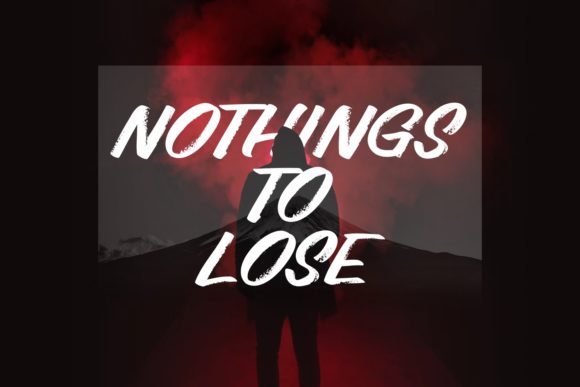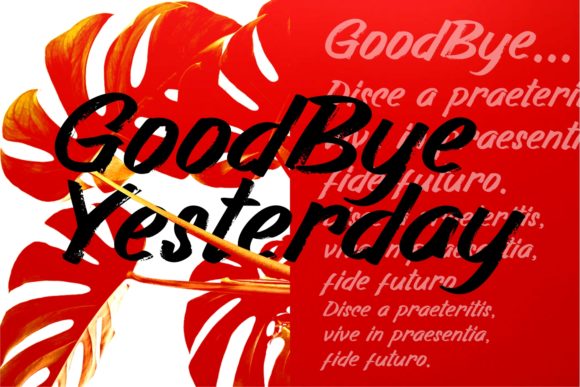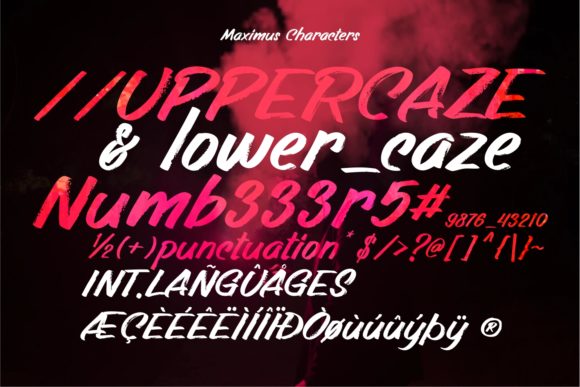
Introduction to Maximus Font
As a designer, you’ve likely found yourself staring at a blank canvas, searching for the perfect font to bring your creative project to life. The words on the page seem to be missing that special something – a spark that sets the tone for the entire design. That’s when you stumble upon a hidden gem, a font that effortlessly elevates your work to the next level. For many designers, this moment of discovery is exactly what happened when they laid eyes on the Maximus Font.
This beautifully crafted, brushed handwritten font is more than just a pretty face – it’s a reliable design resource that adds a touch of sophistication to any project. With its well-balanced characters and transparent background, it’s the perfect addition to any design, allowing your message to shine through without distraction.
Key Features of Maximus Font
- High-quality font with a transparent background, ideal for creative projects that require a clean and modern look.
- Designed to be highly legible, even at small font sizes, ensuring your message is conveyed clearly in any creative project.
- Perfect for use in logos, branding materials, and other design elements where a clean and modern font is required.
Honest Review: Maximus Font
As a designer, I’ve had my fair share of fonts, but I’m excited to share my thoughts on the Maximus Font. This high-quality design resource is a great addition to any creative project.
Here are some things that work well:
- ✨ Beautiful, modern design that’s perfect for headings and titles
- ✨ Supports a wide range of languages, making it a great option for international projects
- ✨ Transparent background option, giving designers flexibility when designing for different backgrounds
- ⚠️ Limited font weights, which may not be suitable for all design projects
- ⚠️ Not ideal for use as a body font, as it can be quite large and overwhelming
Overall, I’m impressed with the Maximus Font, and I think it’s a great option for designers looking for a high-quality, modern font. While it may not be perfect for every project, it’s definitely a valuable addition to any design resource library.
To get the most out of Maximus Font, experiment with different font sizes, colors, and styles to create a unique and creative look. You can also use the font in combination with other design elements to add depth and visual interest to your project.
Maximus Font is perfect for a variety of creative projects, including logo design, branding, and graphic design. Its high quality and transparent background make it ideal for creating eye-catching graphics and designs.
Yes, the Maximus Font is highly customizable, allowing you to adjust its size, color, and other attributes to suit your creative project. You can also use font editors or software to modify the font’s design and create custom variations.